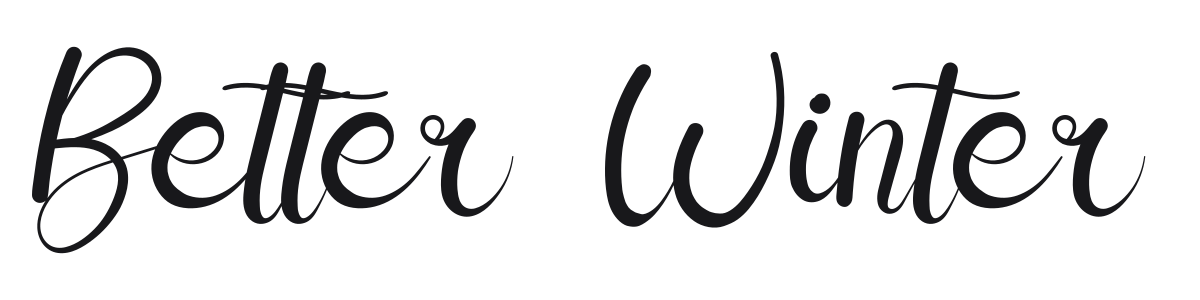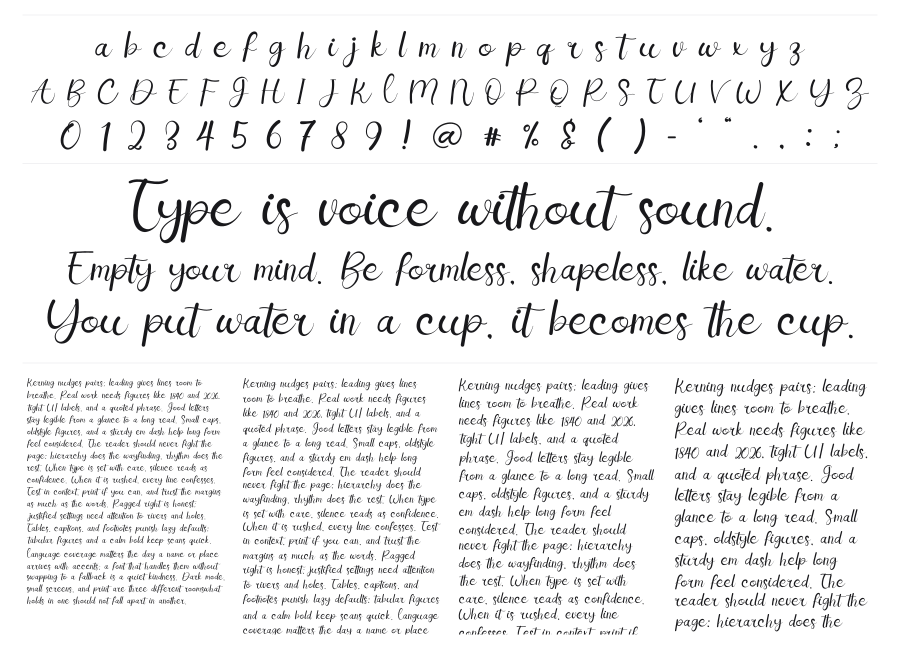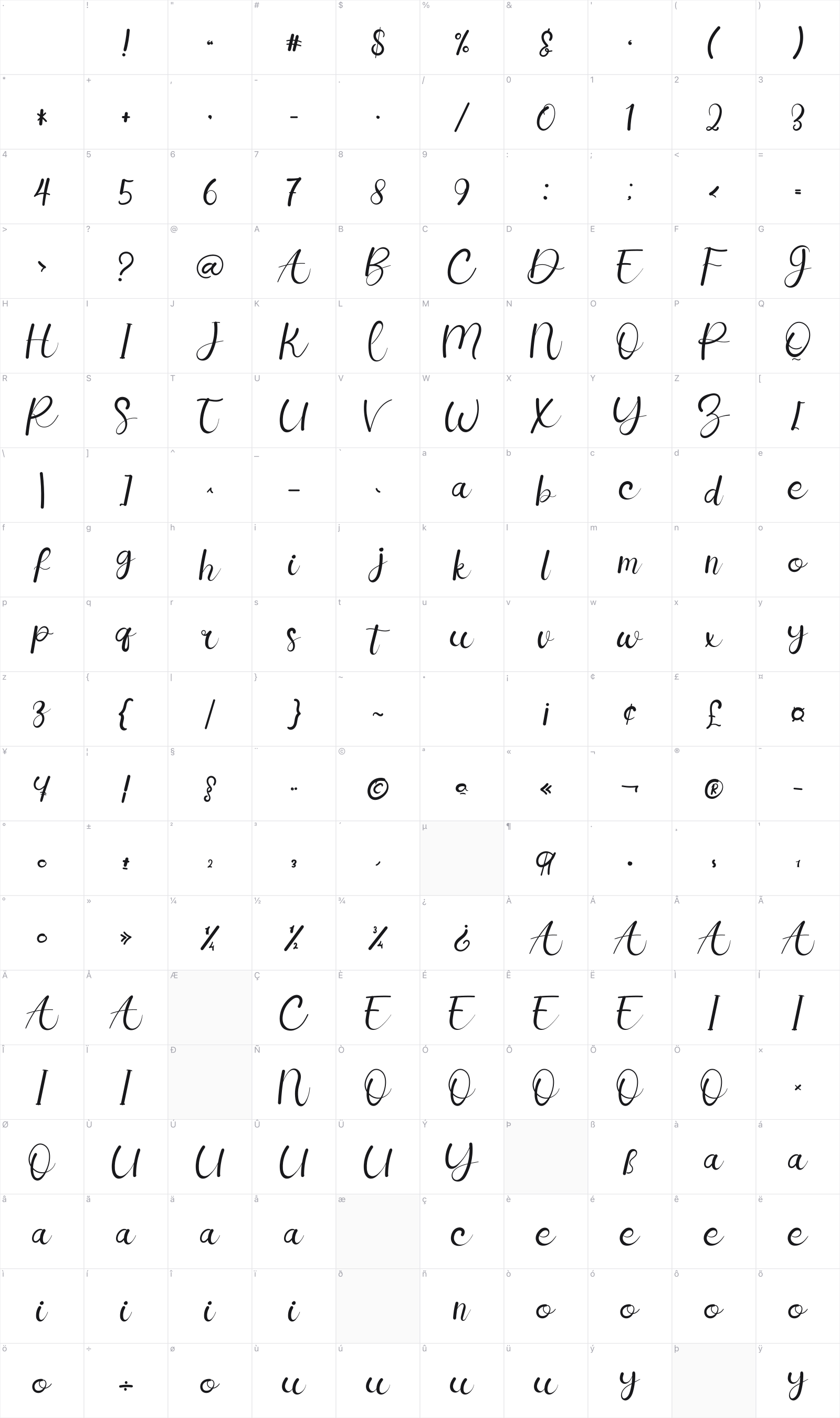
Better Winter
Better Winter is a lively casual script with flowing connected strokes and expressive swash details. The bouncy baseline and generous loops give it a handcrafted warmth that suits seasonal branding, greeting cards, and product packaging. Moderate stroke contrast keeps it readable even at mid-range display sizes.